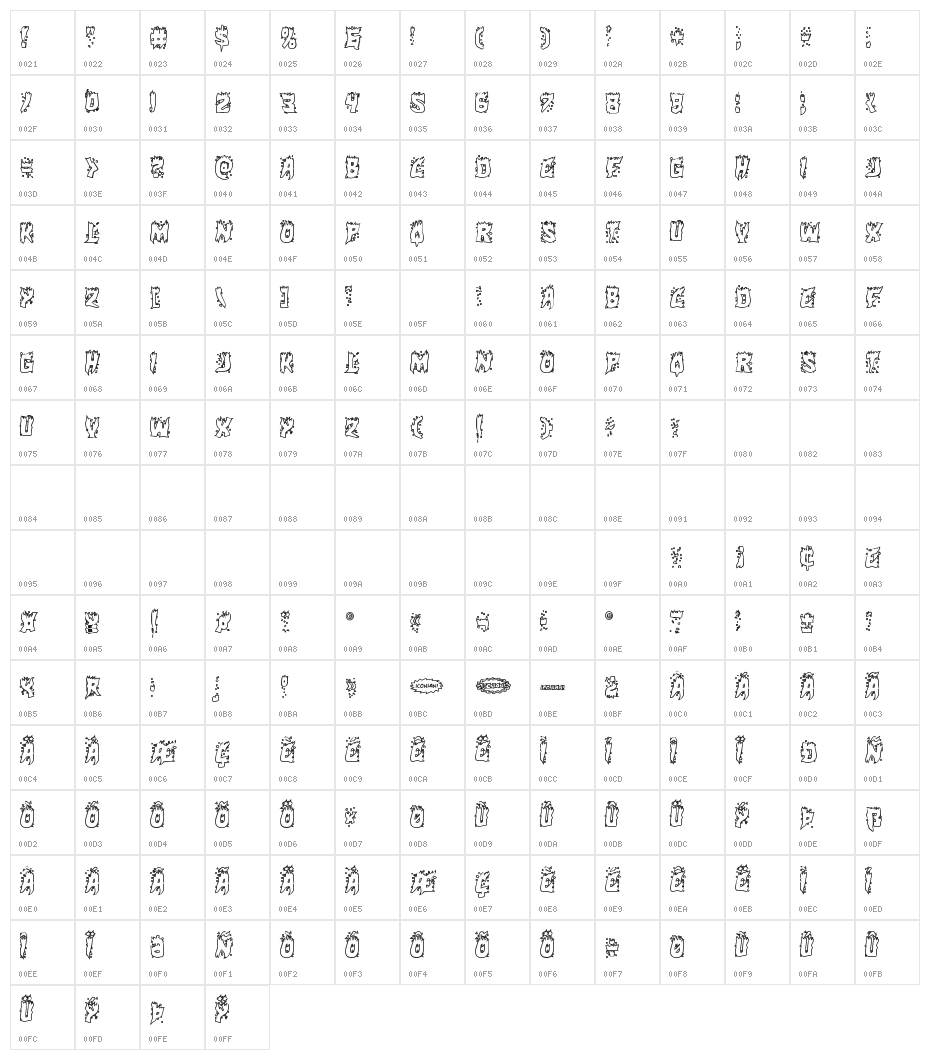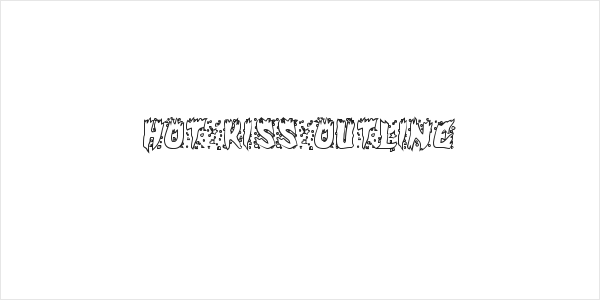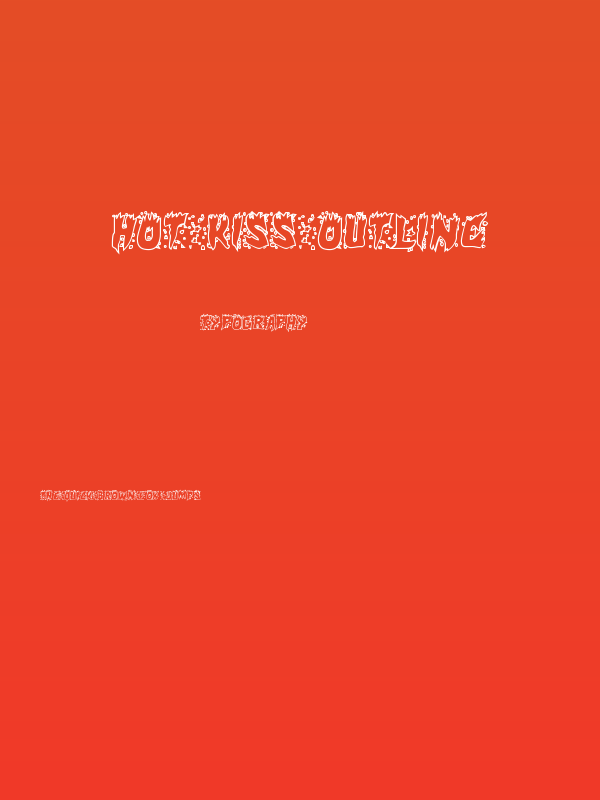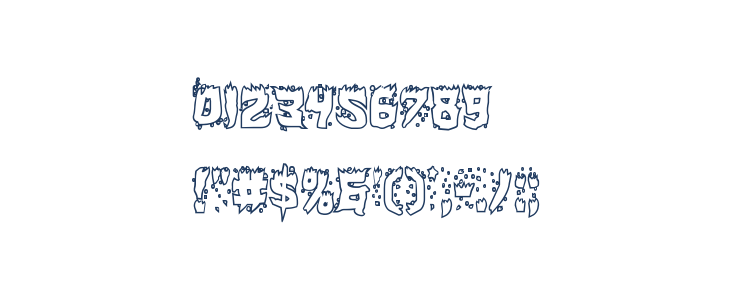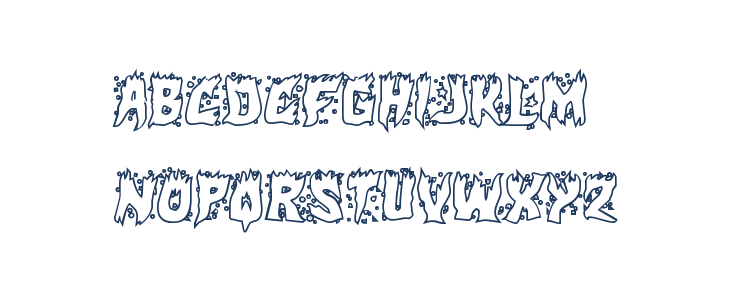
Hot Kiss Outline Font
Hot Kiss Outline Description
This font features a bold, playful design with an outline style that gives each character a dynamic, energetic appearance. The letters are adorned with irregular, jagged edges and small dot-like details, creating a sense of movement and excitement. The overall look is reminiscent of a comic or graffiti style, making it ideal for projects that require a fun and eye-catching aesthetic. The uppercase and lowercase letters maintain a consistent style, while the numbers and special characters complement the overall theme with similar decorative elements.
| Overall Style | Playful, Energetic, Comic |
| Proposed Projects | Ideal for comic book titles, party invitations, children's book covers, and playful branding projects. |